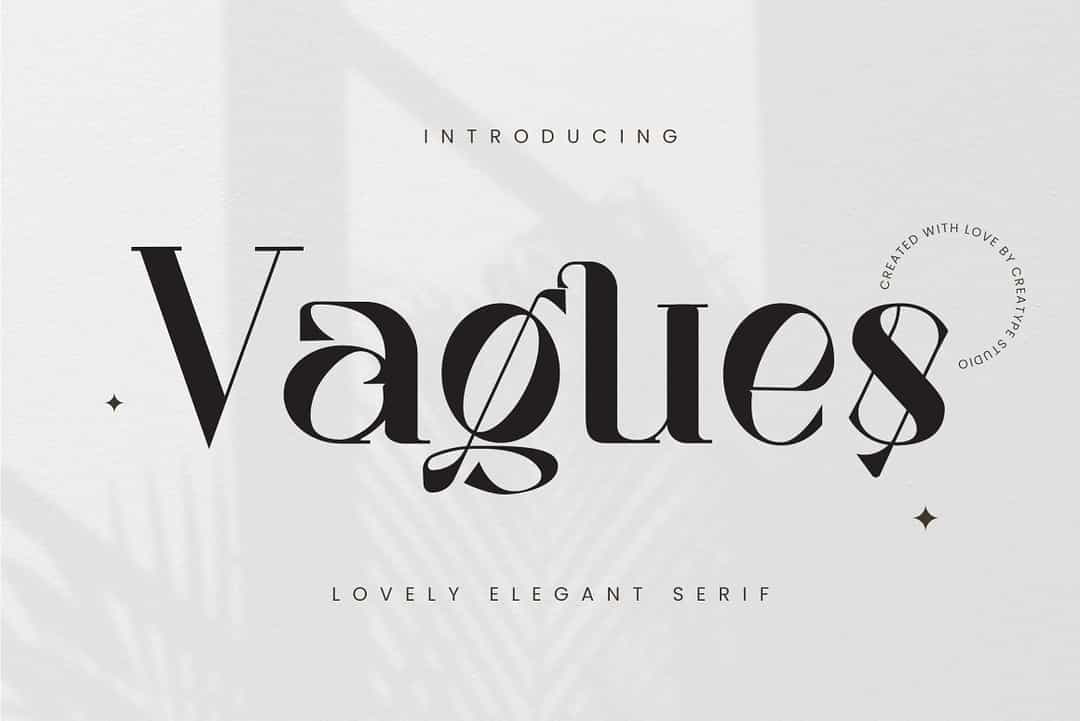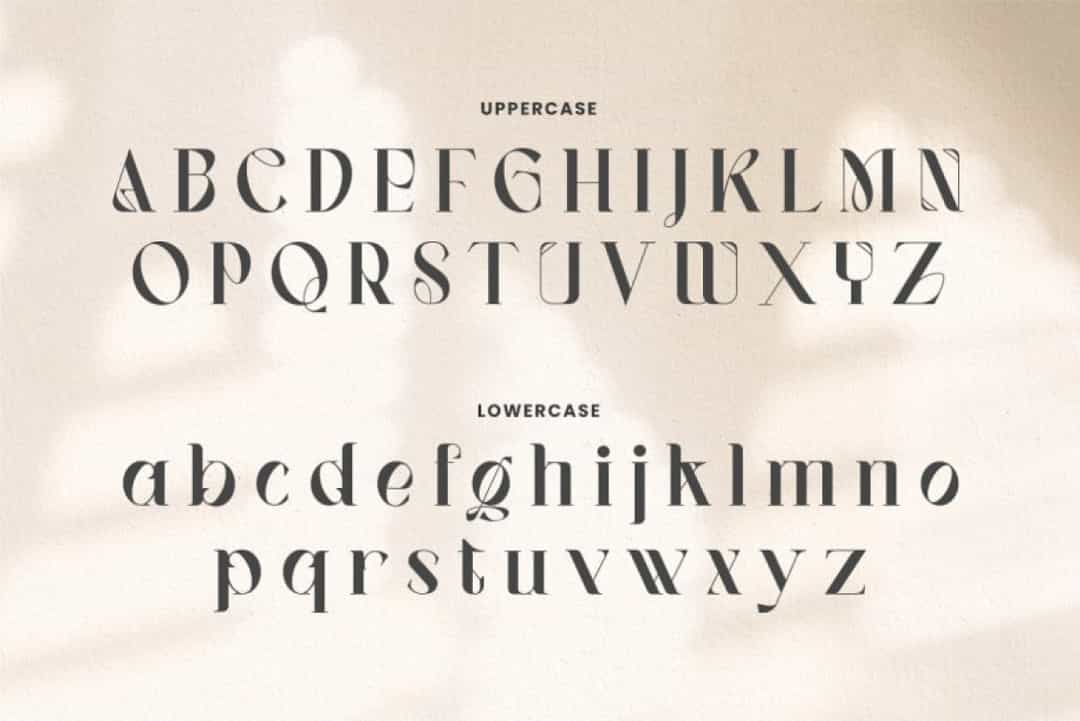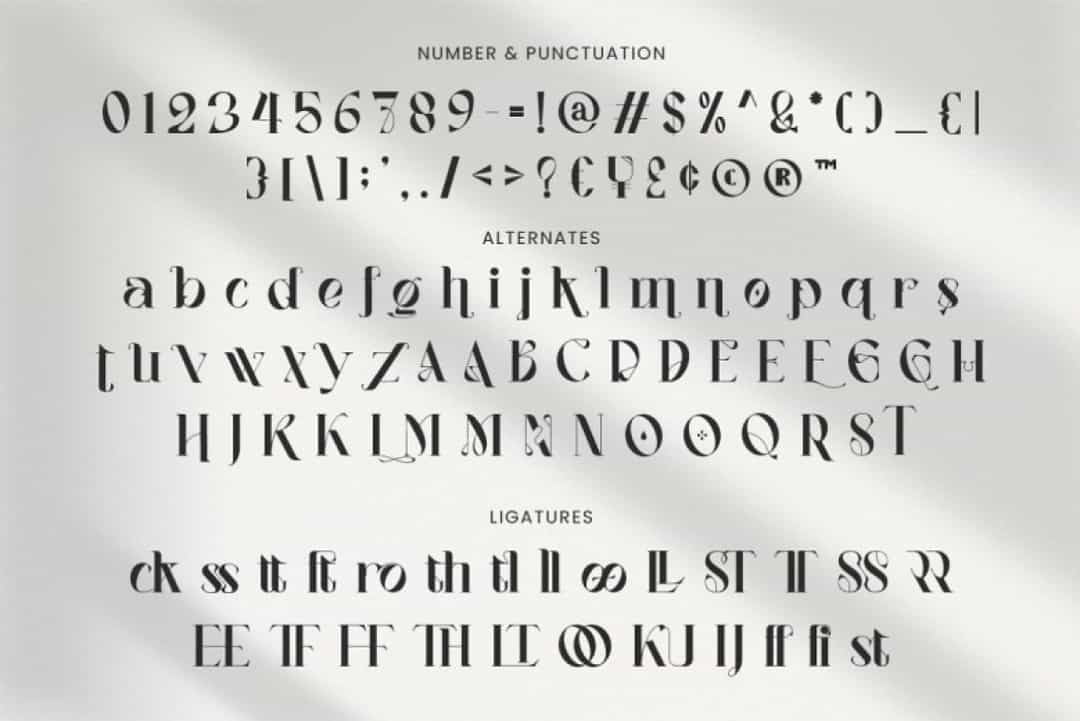
Vagues is an elegant serif typeface which exudes grace. With its graceful curves and finely crafted details, this serif typeface adds an exquisite touch to any design work. Ideal for branding purposes, wedding designs and ads, social media posts packaging of products, designs label photo watermark invitation stationery etc it provides handwriting skills which makes this font great choice!